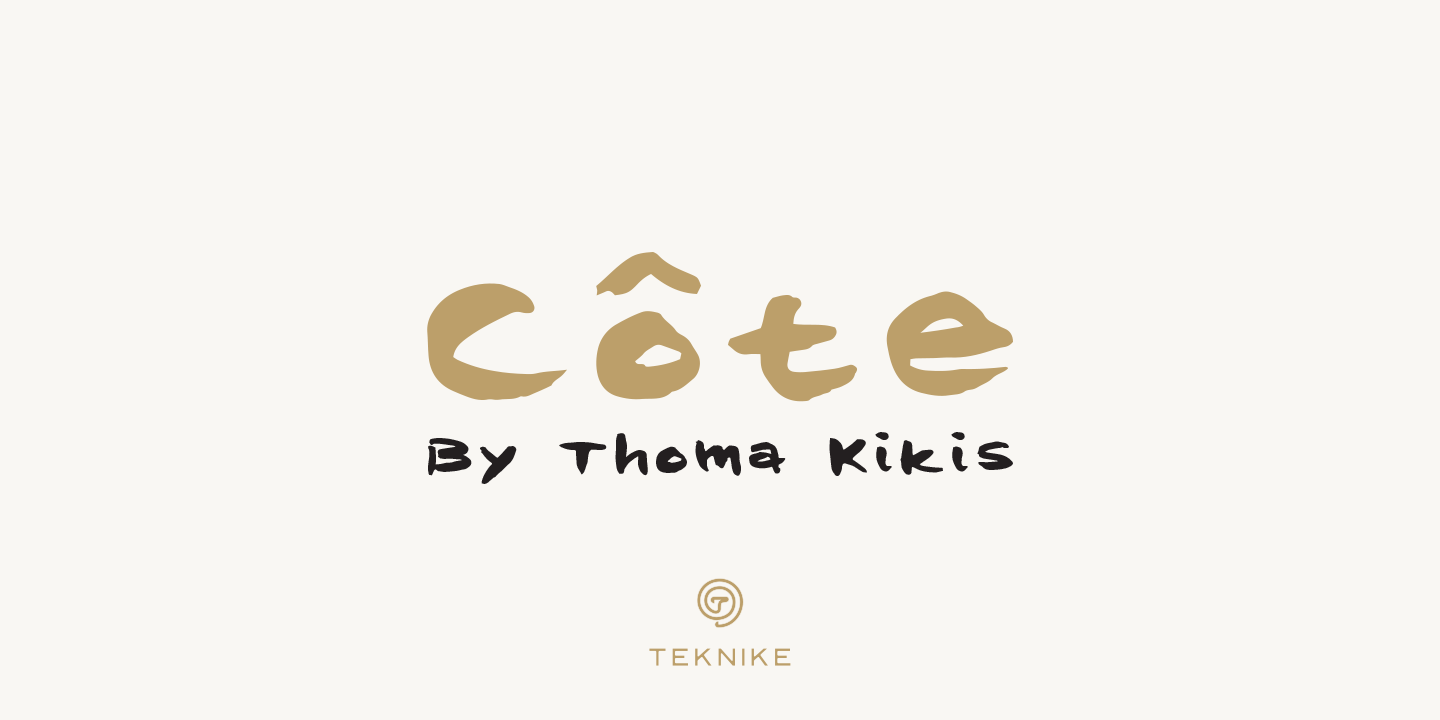
Côte
Designed by Thoma Kikis, Côte is a brush display and hand drawn font family. This typeface has four styles and was published by TEKNIKE.
Côte is a display monospace handwriting font. The typeface is a distinct hand drawn font using a felt marker. The Côte name is derived from the French word meaning “coast” and is also used to describe winemaking vineyards and regions throughout France. One of the most popular regions in the south of France is the French Riviera also known as the Côte d’Azur. Côte is great for display work, invitations, writing, architecture, posters, wine labels and headings.